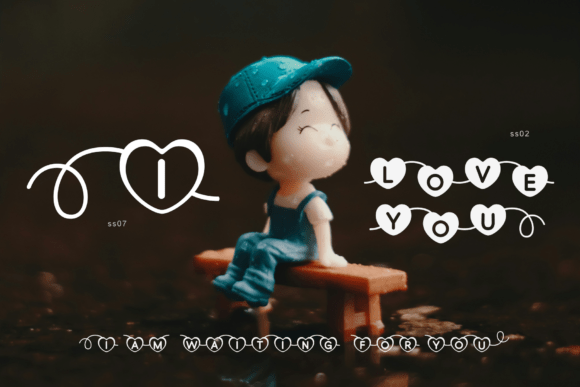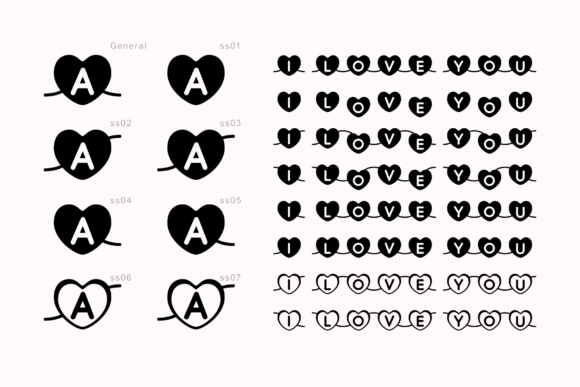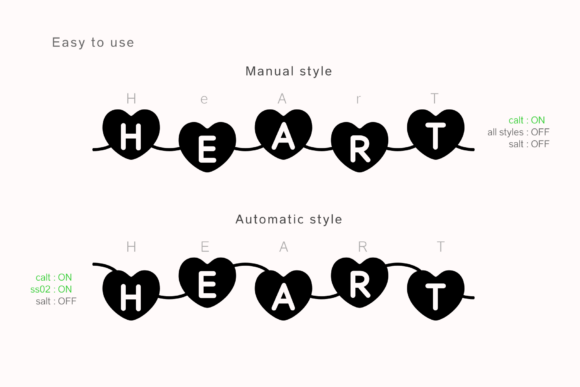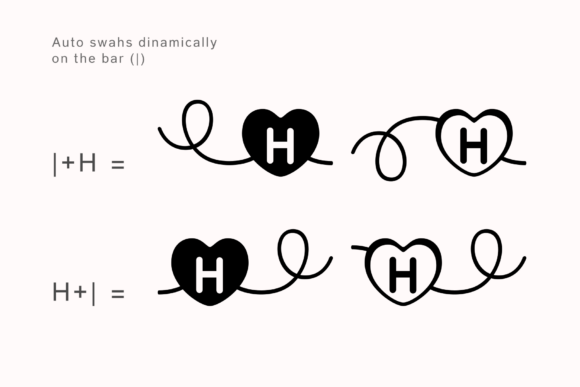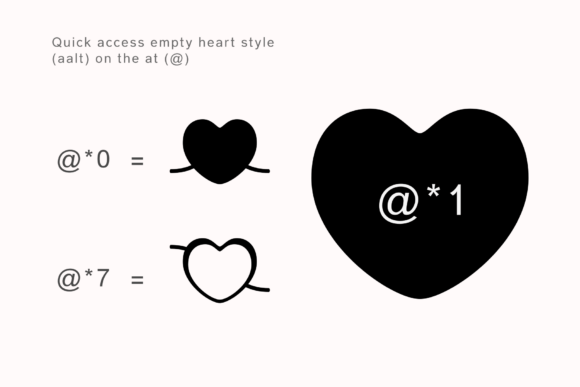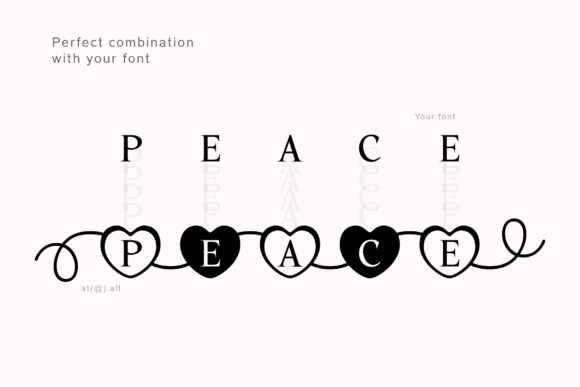
Introducing Connected Hearts Font: The Ultimate Love-Themed Decorative Font
Are you a designer or crafter looking for a unique and romantic font to add a touch of love to your projects? Look no further than Connected Hearts Font, a beautiful decorative font featuring interlocking heart symbols that’s perfect for all your romantic design needs.
What is Connected Hearts Font?
Connected Hearts Font is a specially designed love-themed font that showcases interlocking heart symbols, making it an ideal choice for any project that requires a touch of romance. What’s special about this font is that it comes with multiple style options, allowing you to choose the perfect look for your design. The only exception is the ss01 style, which does not feature interlocking hearts.
Key Features of Connected Hearts Font
- Easy to Use: Connected Hearts Font is incredibly easy to use, making it accessible to designers and crafters of all skill levels.
- Multiple Style Options: With various style options to choose from, you can manually or automatically select the perfect style to match your project’s theme.
- Interlocking Heart Symbols: The font features beautiful interlocking heart symbols, adding a touch of romance to any design.
- Suitable for Various Projects: Connected Hearts Font is perfect for romantic design projects, happy themes, wedding invitations, birthdays, Valentine’s Day, gift tags, banners, and more.
Perfect for Romantic Design Projects
Whether you’re designing wedding invitations, Valentine’s Day cards, or simply want to add a touch of love to your craft projects, Connected Hearts Font is the perfect choice. The font’s interlocking heart symbols and multiple style options make it easy to create beautiful and unique designs that are sure to impress.
Ideas for Using Connected Hearts Font
Here are some ideas for using Connected Hearts Font in your design projects:
- Wedding Invitations: Add a touch of romance to your wedding invitations with Connected Hearts Font.
- Valentine’s Day Cards: Create beautiful Valentine’s Day cards with the font’s interlocking heart symbols.
- Gift Tags: Use Connected Hearts Font to create adorable gift tags for special occasions.
- Banners: Design eye-catching banners with the font’s multiple style options.
- Craft Projects: Add a touch of love to your craft projects, such as scrapbooking, card making, and more.
Tips for Getting the Most Out of Connected Hearts Font
Here are some tips for getting the most out of Connected Hearts Font:
- Experiment with Different Styles: Try out different style options to find the perfect look for your project.
- Combine with Other Fonts: Combine Connected Hearts Font with other fonts to create unique and interesting designs.
- Use in Digital Projects: Use the font in digital projects, such as social media graphics, blog posts, and more.
Connected Hearts Font is a beautiful and versatile love-themed font that’s perfect for designers and crafters looking to add a touch of romance to their projects. With its interlocking heart symbols, multiple style options, and ease of use, it’s an ideal choice for any romantic design project. So why wait? Download Connected Hearts Font today and start creating beautiful designs that will capture the hearts of your audience.